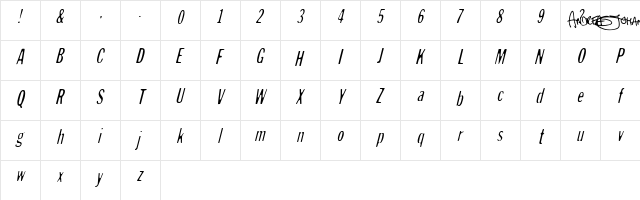
Andreas Sans Cnd Oblique Regular
Design Context for Andreas Sans Cnd Oblique Typeface
Andreas Sans Cnd Oblique takes a measured approach to typography — its balanced proportions and neutral character make it a reliable workhorse for both digital and print work. The dynamic lean of this cut emphasises speed and emphasis in any layout.